Typography has the power to convey emotions, and nothing speaks the language of love better than fonts designed with romance in mind. Valentine-themed fonts, filled with charming curves, heart symbols, and elegant flourishes, can transform your designs into heartfelt creations. Whether you’re crafting Valentine’s Day cards, romantic movie titles, love storybook covers, or themed event posters, the right typeface sets the mood for love and affection.
Below, we explore a delightful collection of romantic fonts perfect for expressing love in all its forms. Each font offers unique characteristics that add warmth, charm, and emotion to your design projects.
1. Romantic Dates – Playful Yet Elegant
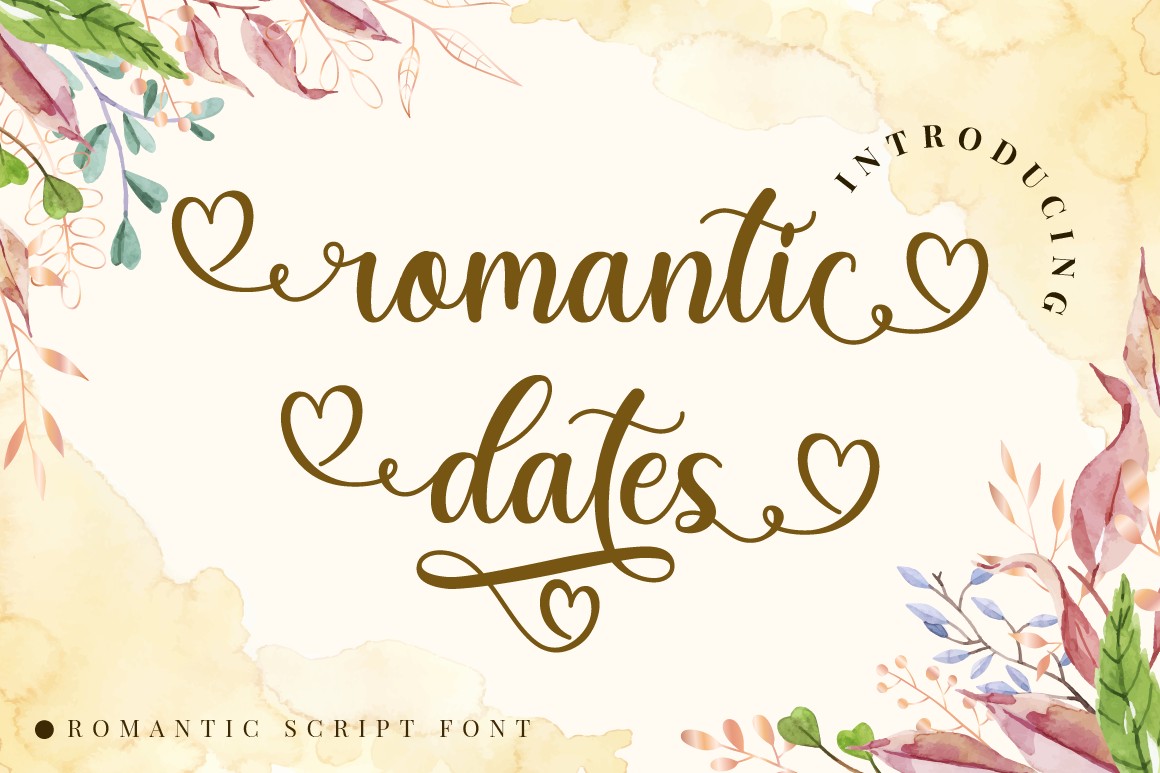
Romantic Dates combines playful lettering with romantic flair. Key features include:
- Curved, handwritten-style characters that evoke a personal, heartfelt touch.
- Ideal for greeting cards, wedding invitations, and love-themed social media graphics.
- Heart-shaped accents and flourishes that enhance its romantic appeal.
This font’s whimsical design makes it perfect for celebrating love in a cheerful, expressive manner.
2. The Love Movies – Bold and Cinematic
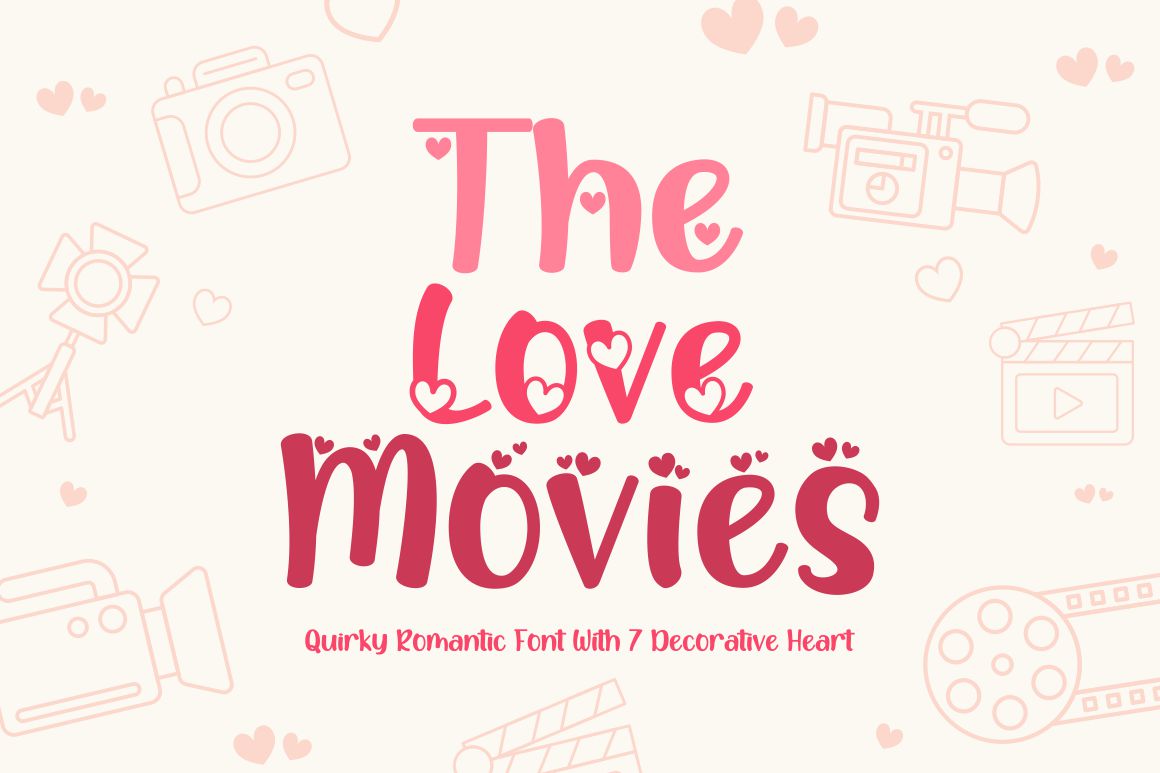
The Love Movies captures the drama and passion of romance films. Highlights include:
- Thick, bold strokes with vintage cinematic flair.
- A striking appearance suitable for movie posters, trailers, and film-related promotions.
- Elegant curves that blend drama and sophistication.
The Love Movies evokes the grandeur of romantic cinema, making it a top choice for dramatic Valentine projects.
3. Valentjin – Classic Romance with a Modern Twist
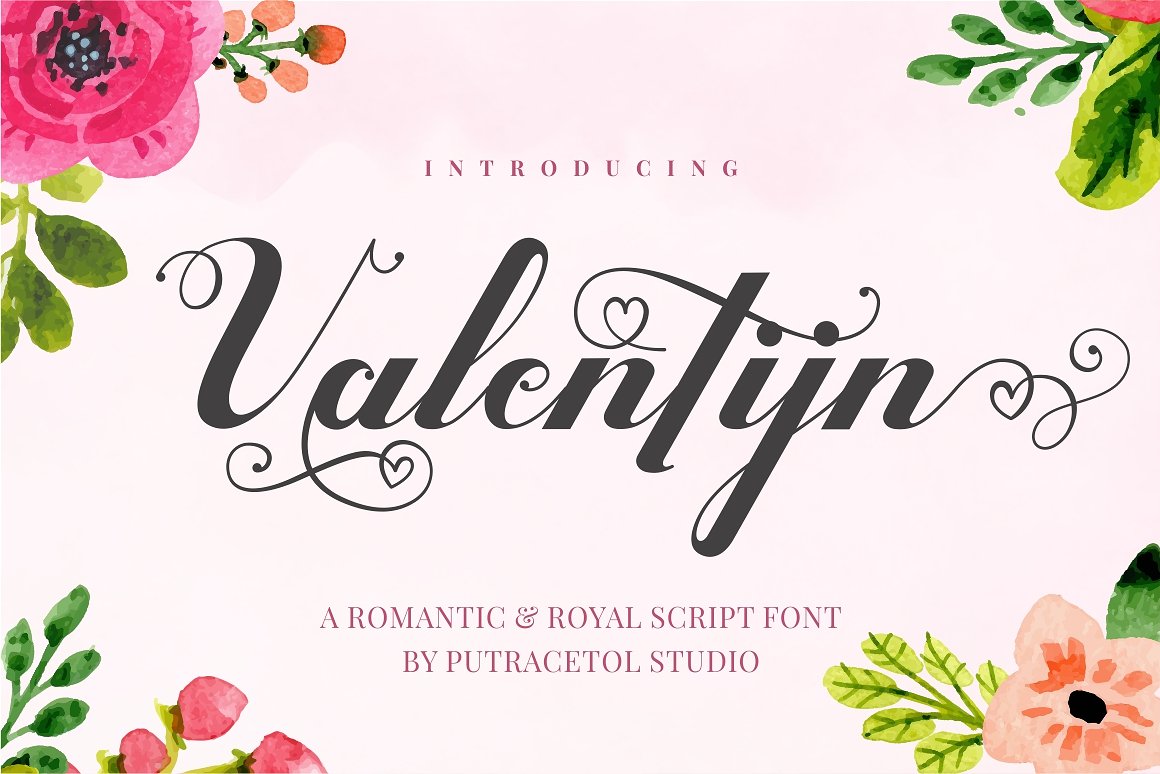
Valentjin brings a modern elegance to traditional romance-themed fonts. Key features:
- Smooth, flowing script with decorative swashes.
- Perfect for wedding stationery, romantic book covers, and event posters.
- A versatile font that balances charm and contemporary style.
Valentjin’s timeless appeal works well across various romantic design projects.
4. Love Paradise – A Tropical Love Affair
Love Paradise exudes warmth and relaxation. Features include:
- Rounded, soft lettering that conveys comfort and affection.
- Ideal for tropical-themed love stories, vacation advertisements, and playful Valentine’s cards.
- A heartwarming design perfect for carefree romantic settings.
Use Love Paradise to transport your audience to a sunny, love-filled getaway.
5. Our Infinity Love – Eternal Romance in Every Stroke
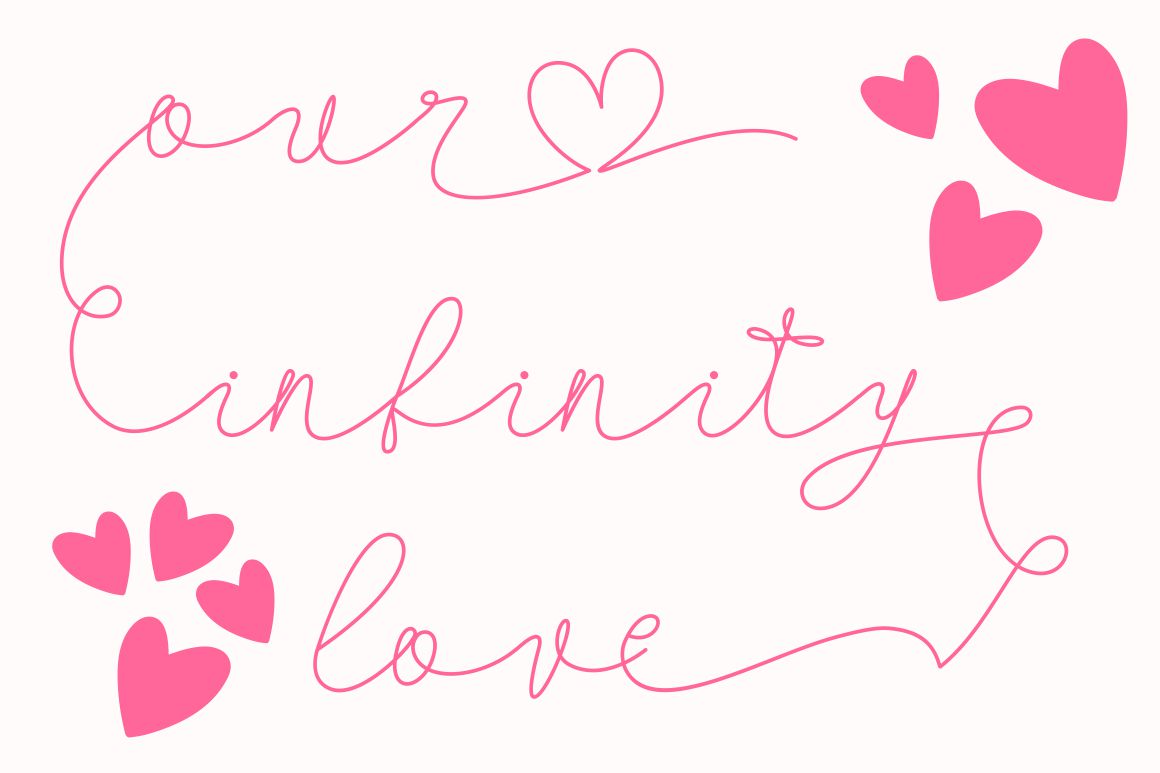
Our Infinity Love symbolizes everlasting affection. Key elements:
- Flowing script with infinite loops and connected letters.
- Ideal for anniversary cards, engagement announcements, and love-inspired logos.
- A refined design that signifies unending devotion.
Our Infinity Love is perfect for projects that celebrate eternal bonds and lifelong connections.
6. Romantic February – Soft and Sweet
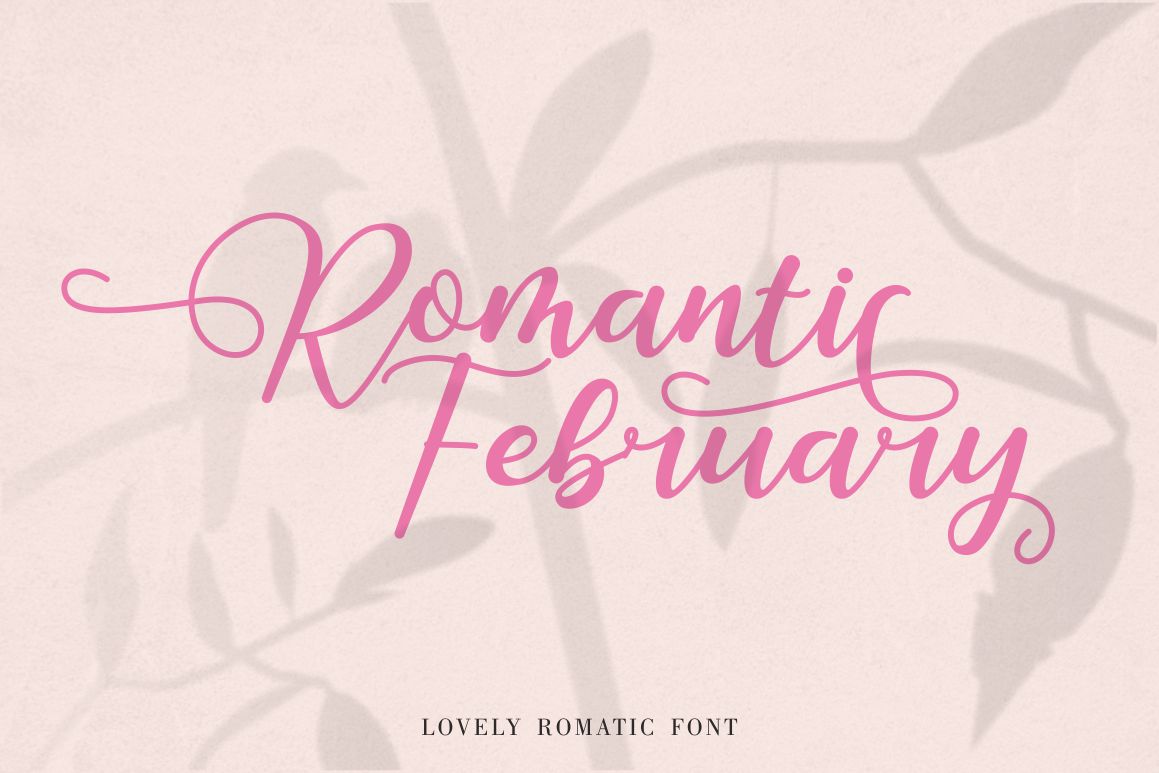
Romantic February embodies the softness of love in its purest form. Key features:
- Delicate, rounded characters with subtle heart-shaped elements.
- Suitable for Valentine’s Day cards, decorative quotes, and gift tags.
- A tender, sweet style that radiates warmth.
Romantic February captures the gentle essence of love and affection.
7. Cute Love Story – Playful and Charming
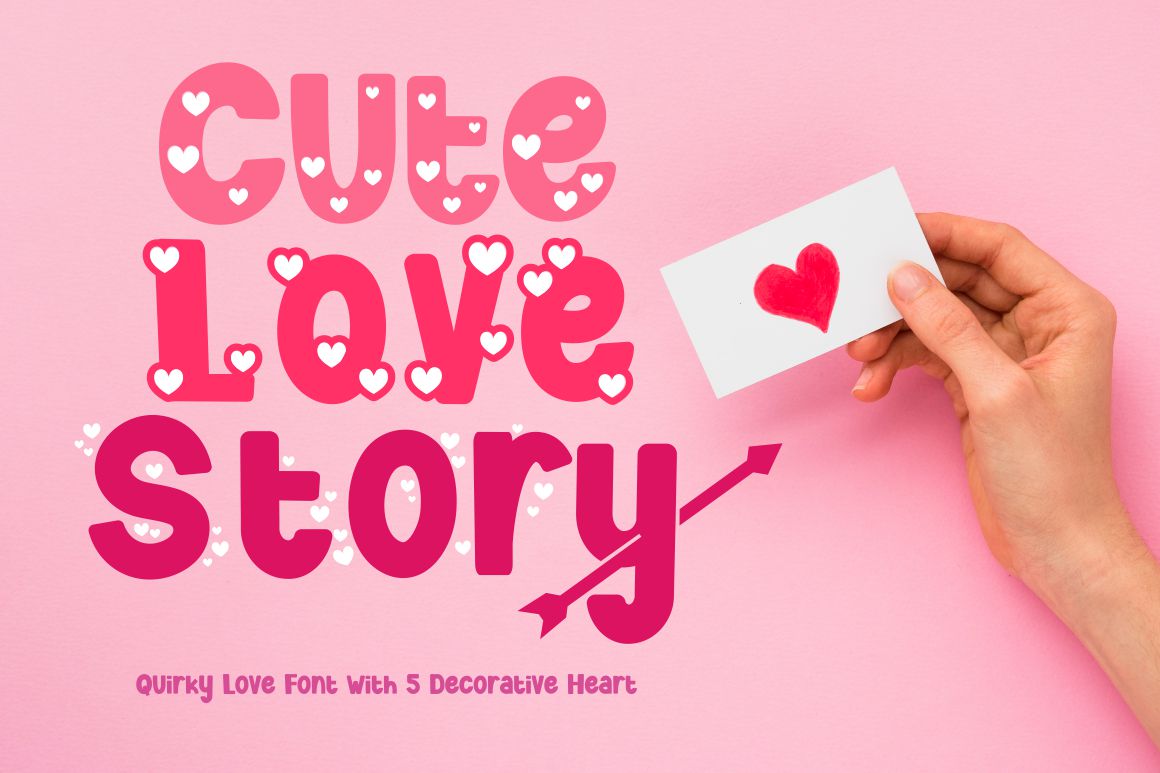
Cute Love Story delivers youthful charm and fun. Key attributes:
- A playful, bubbly style filled with heart-inspired details.
- Ideal for children’s Valentine cards, festive decorations, and lighthearted designs.
- Energetic, cute letterforms that add joy and cheer.
Cute Love Story’s joyful design makes it perfect for spreading love and happiness.
Why Romantic Fonts Matter for Love-Themed Designs
Choosing the right romantic font enhances your ability to communicate love visually. Here’s why they matter:
- Create emotional resonance: Love-themed fonts convey feelings of passion, tenderness, or joy.
- Set the tone for special moments: Fonts designed for romance establish a celebratory or sentimental mood.
- Enhance creativity: Unique flourishes, heart accents, and flowing scripts bring designs to life.
By using fonts like Romantic Dates and Our Infinity Love, you can craft visually stunning messages that speak directly to the heart.
Conclusion
Valentine fonts are the ultimate tool for designers who want to express love and affection. From whimsical, playful designs to elegant, eternal loops, these typefaces transform simple text into passionate works of art. Explore these romantic fonts to find the perfect style for your next love-inspired project.